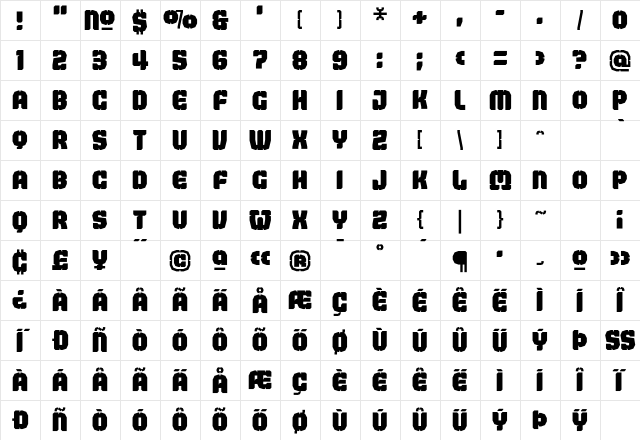
Judgement BlackStencil Free Font
Judgement BlackStencil
Style: BlackStencil
Design Context for Judgement
Judgement borrows the utilitarian aesthetic of stencil lettering, with its characteristic cutaways and no-frills construction lending an industrial edge.
Pro Tip: Use Judgement at large sizes on packaging, posters, or apparel where the stencil cutaways read clearly. Avoid small sizes where those gaps become visual noise.